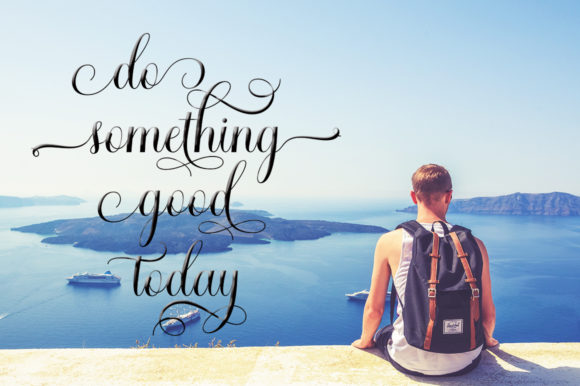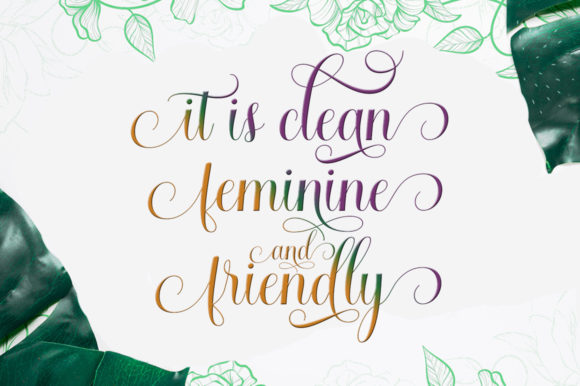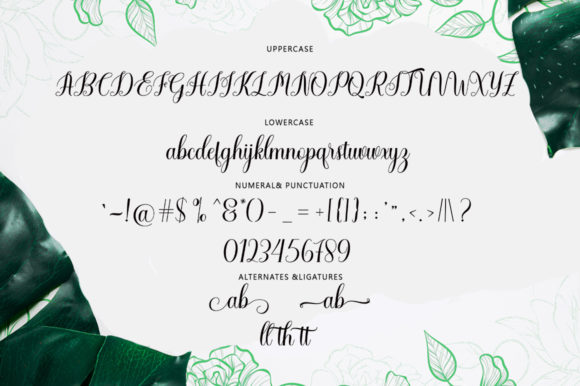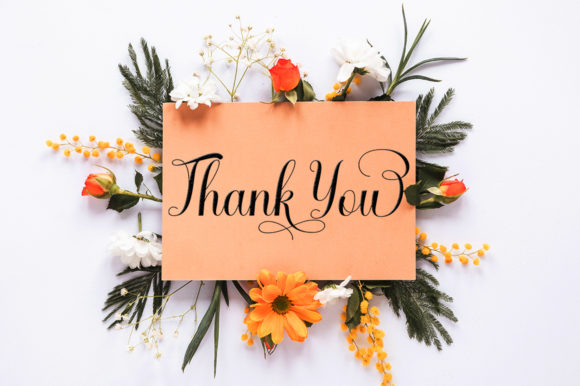
Caldwell Font
About Caldwell Font
Caldwell is a gorgeous script font that’s perfect for adding that extra level of elegance to your next crafting project. IT will turn any design idea into a true standout.